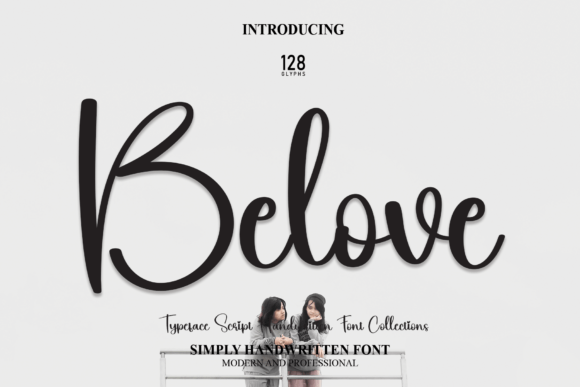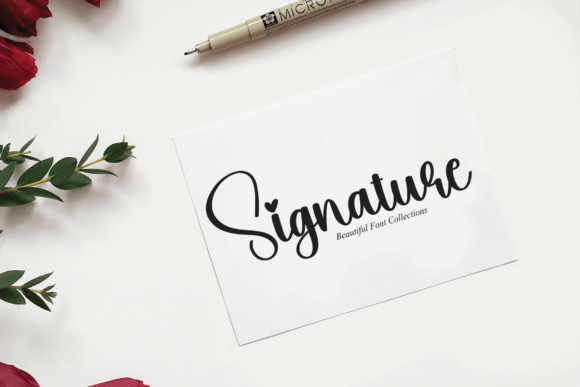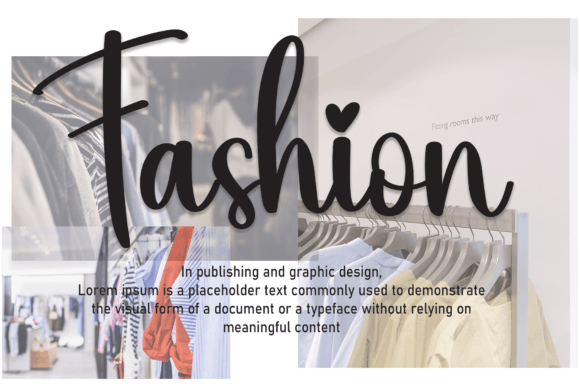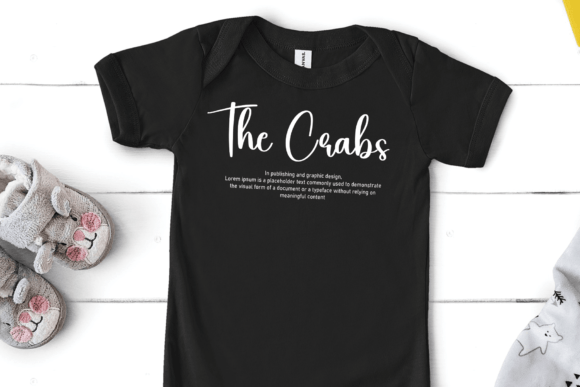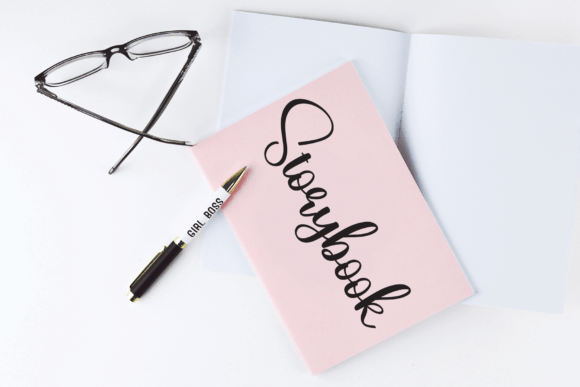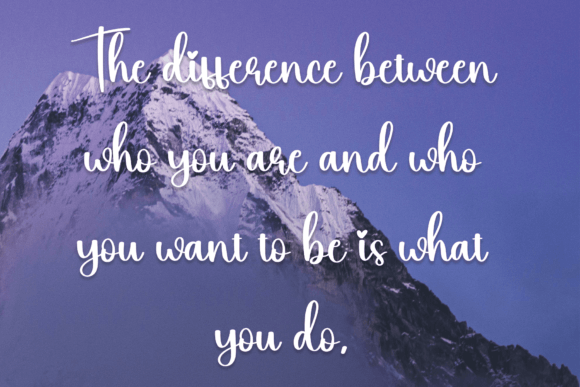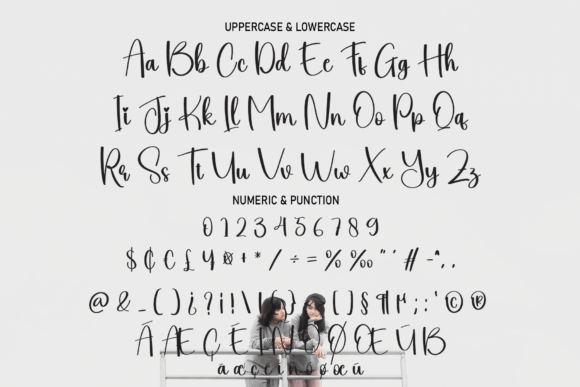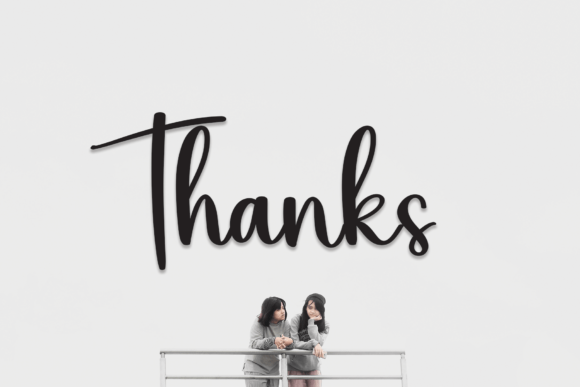
Belove Font
About Belove Font
“Belove: Where Sweetness Meets Elegance in Handwritten Charm
Meet Belove, a font that exudes sweetness and elegance in its cursive handwritten signature style. This gentle font is a visual delight, adding a touch of joy and romance to a variety of design ideas. Its charming curves and flowing strokes make it a perfect fit for a wide range of creative projects, infusing them with a sense of warmth, happiness, and sophistication.
Belove’s beauty lies in its ability to effortlessly blend sweetness with elegance. Its cursive handwritten signature script captures the essence of romance and joy, making it ideal for numerous design purposes. Whether you’re working on branding, logos, wedding materials, greeting cards, fashion designs, lookbooks, or marketing promotions, Belove adds a delightful and romantic flair to your projects. It perfectly balances fancy elegance with casual charm, making it a versatile choice for any occasion.
Imagine your logo adorned with Belove’s sweet and graceful letterforms, creating a memorable and personalized brand identity. Picture your wedding invitations featuring the romantic touch of Belove, setting the stage for a love-filled celebration. With Belove, your designs become more than just visuals; they become heartfelt expressions, conveying your message with tenderness and style.
One of Belove’s standout features is its ability to evoke emotions. Its gentle and flowing script elicits feelings of happiness and romance, creating a delightful atmosphere around your designs. Whether you’re designing greeting cards for special occasions or promotional materials for your fashion brand, Belove infuses a sense of joy and love into your projects, leaving a lasting impression on those who experience them.
Moreover, Belove is more than just a font; it’s a mood enhancer. It transforms ordinary design ideas into delightful visual experiences, making every project a celebration of love and elegance. Its presence elevates your designs, turning them into charming narratives that resonate with your audience.
In a world where emotions are often conveyed through visuals, Belove becomes your language of sweetness and elegance. It speaks the language of romance and joy, resonating with those who appreciate the beauty of handwritten artistry. Whether you’re a professional designer or an enthusiast exploring the realms of creativity, Belove becomes your cherished companion, guiding you toward design excellence.
So, why settle for ordinary when you can embrace the extraordinary with Belove? Let this sweet and cursive handwritten font be the muse for your creative expressions, and watch as your projects come to life with a joyful and romantic touch. Let your creativity flow, and let Belove be the brushstroke that paints your ideas into heartfelt masterpieces, capturing hearts along the way.”